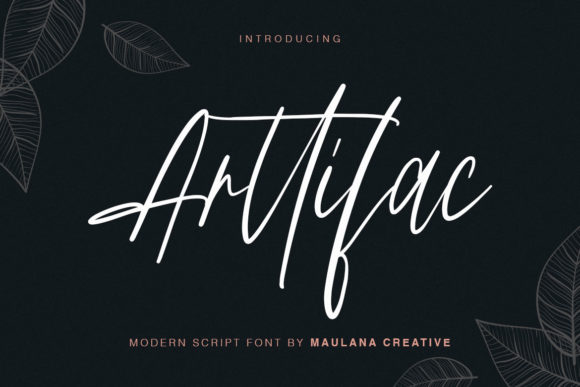
The Quest for the Perfect Handcrafted Font: Discovering Arttifac
I’ll never forget the design project that led me to Arttifac. I was working on a branding campaign for a local artisan bakery, and I needed a font that would evoke the warmth and personality of handcrafted goods. I scoured the internet, tried out dozens of fonts, but nothing seemed quite right. That was until I stumbled upon Arttifac – a gorgeous script font that instantly transported me to a world of artisanal charm.
Arttifac: A Bold and Charming Font Experience
Arttifac is the ideal script to give your designs that authentic, handcrafted feel. With its stunning signature style, it delivers an incredibly bold and charming font experience! Whether you’re a designer, crafter, or creative hobbyist, Arttifac is sure to become your new go-to font.
• ✅ Unique and authentic handcrafted feel
• ✅ Beautiful signature style with plenty of character
• ✅ Highly legible and versatile for various design projects
• ✅ Extensive OpenType features, glyphs, and stylistic alternates
• ⚠️ May not be suitable for very small font sizes or body text
• ⚠️ Some users may find the font a bit too bold or overpowering
Arttifac was designed by a talented type designer who wanted to create a font that would capture the essence of handcrafted goods. Inspired by the artisanal craftsmanship of traditional bakers, woodworkers, and other skilled artisans, the designer poured their heart and soul into creating a font that would evoke the warmth and personality of handmade products.
Q: What makes Arttifac so special?
A: Arttifac’s unique blend of boldness and elegance, combined with its extensive OpenType features, make it a standout font that’s perfect for designs that require a handcrafted feel.
Q: Is Arttifac suitable for body text?
A: While Arttifac is highly legible, it may not be the best choice for body text due to its bold and decorative nature. However, it can be used for short paragraphs or captions.